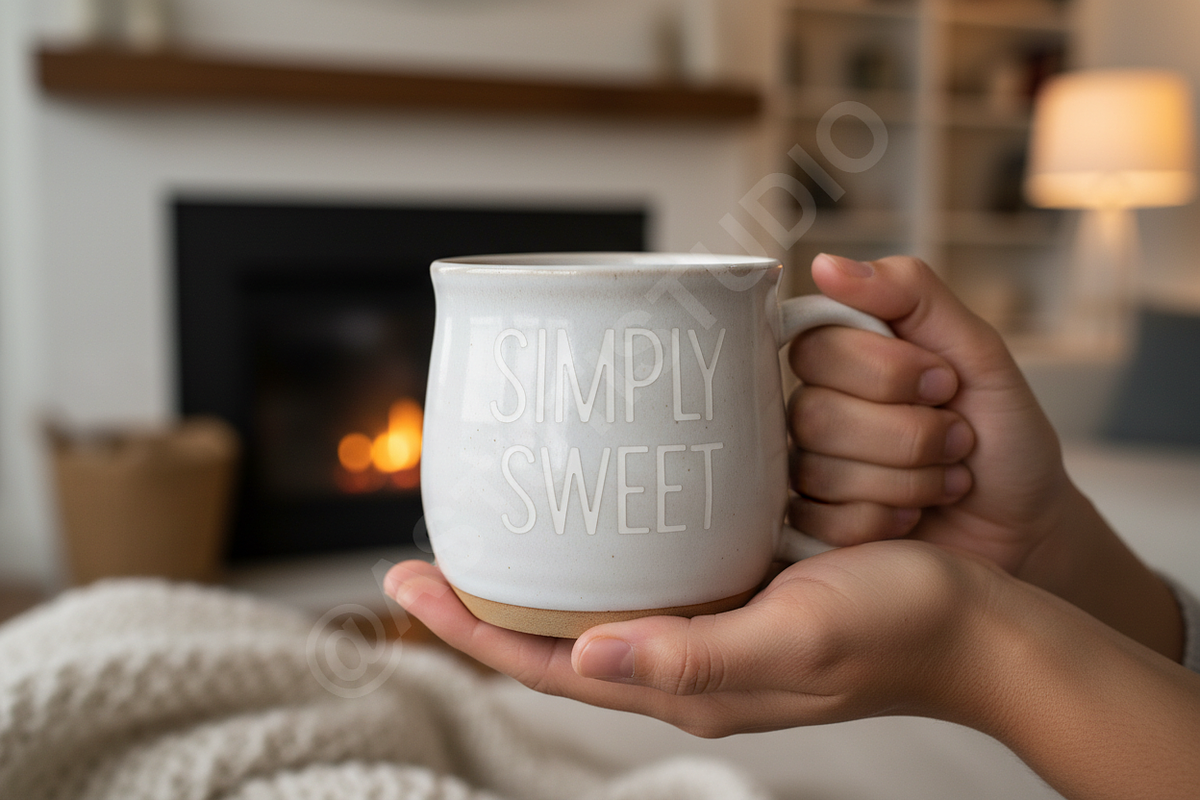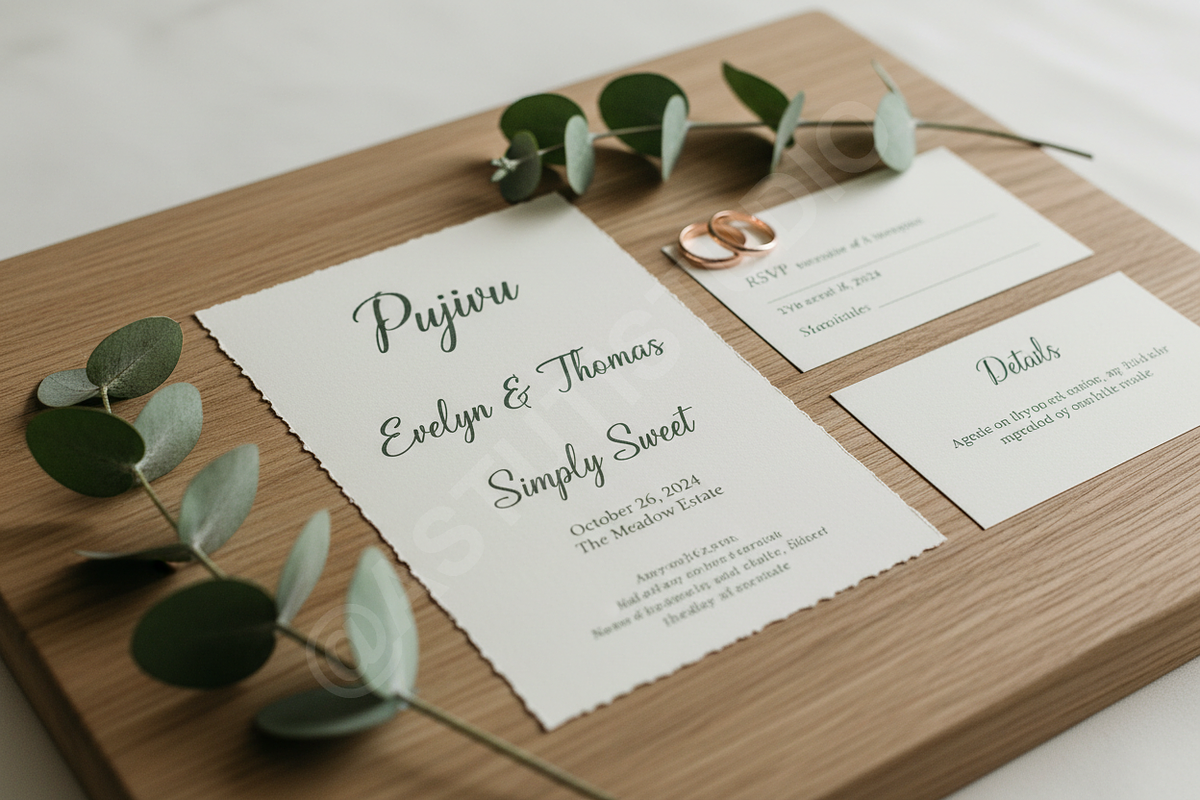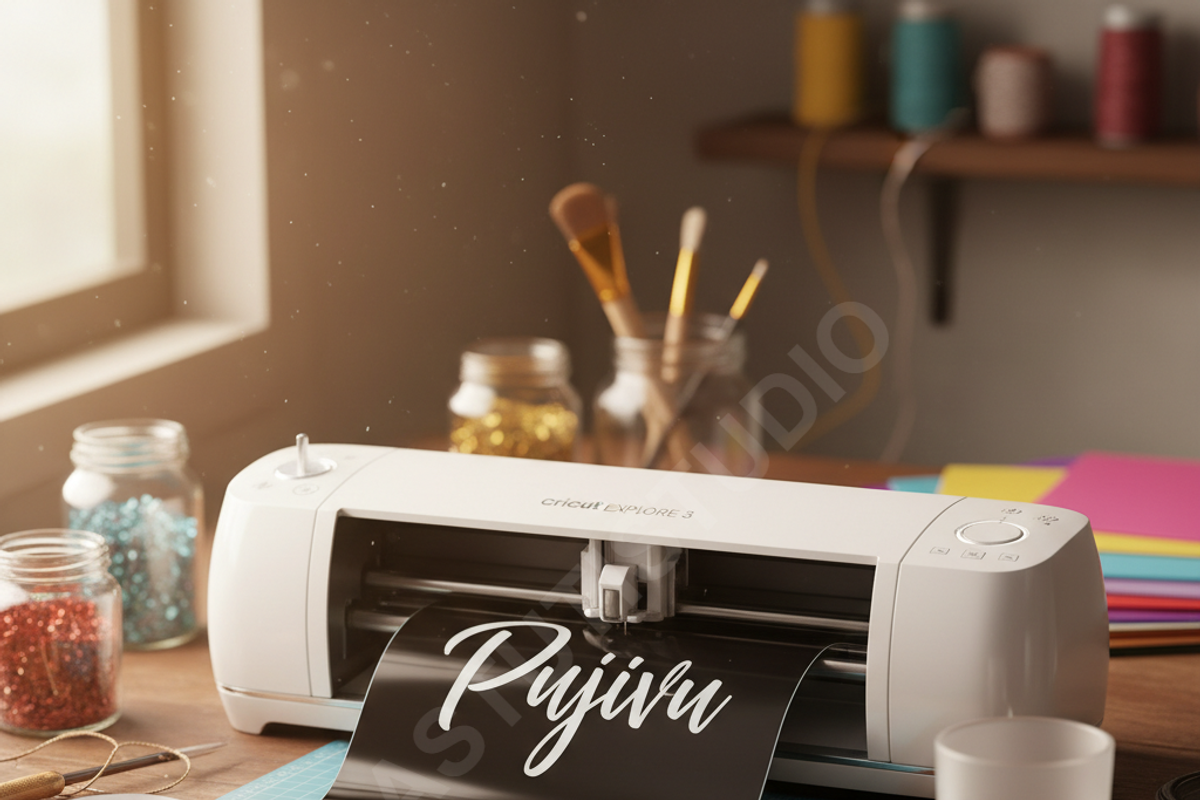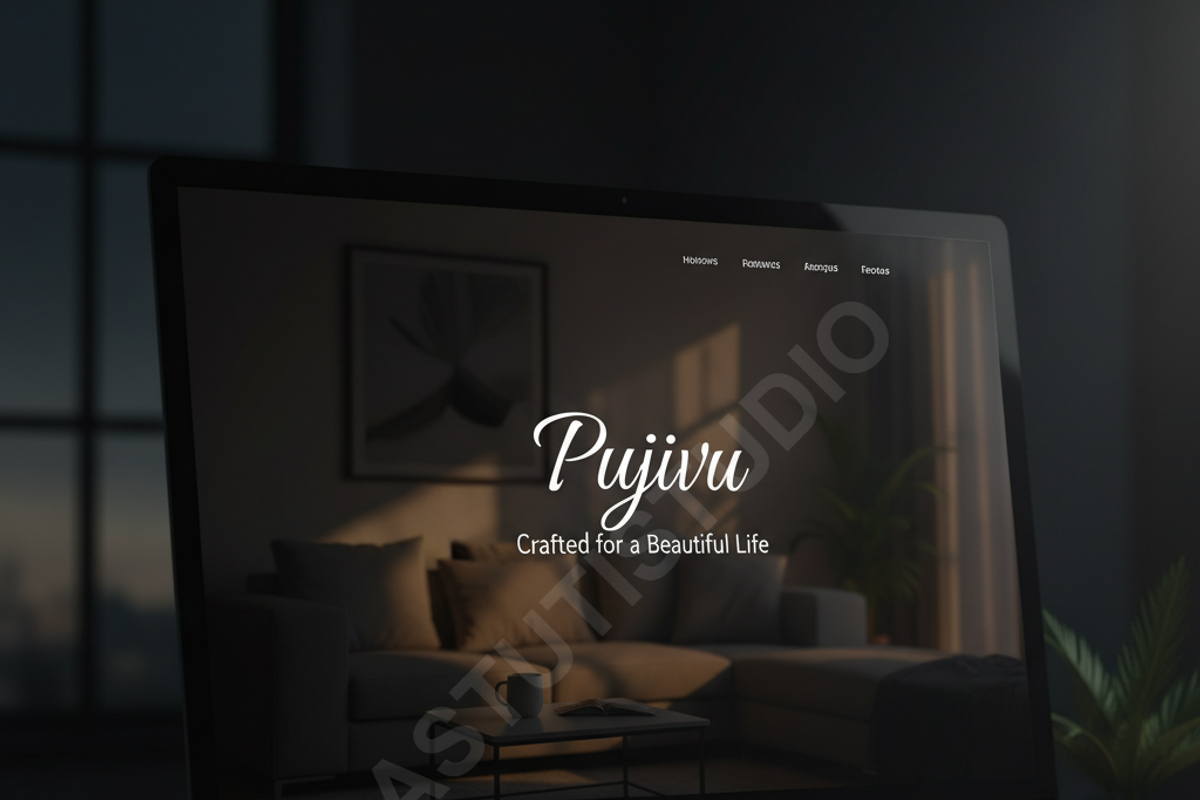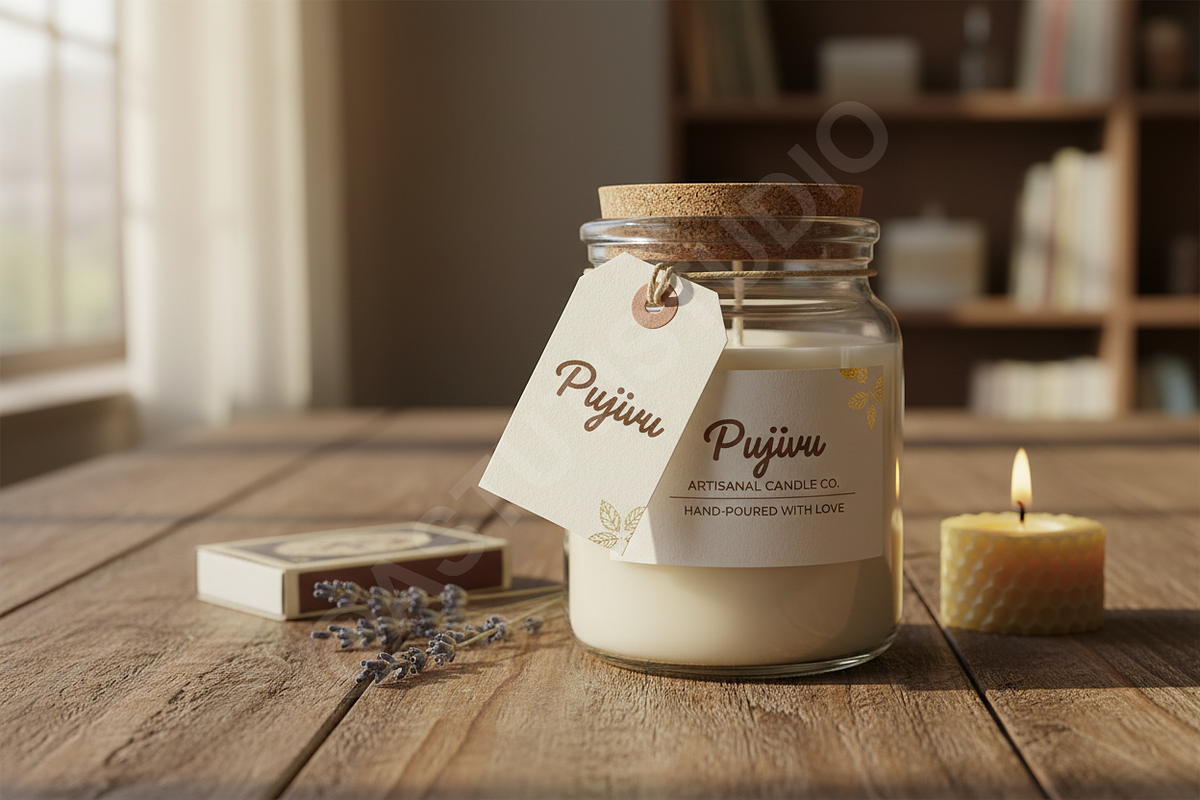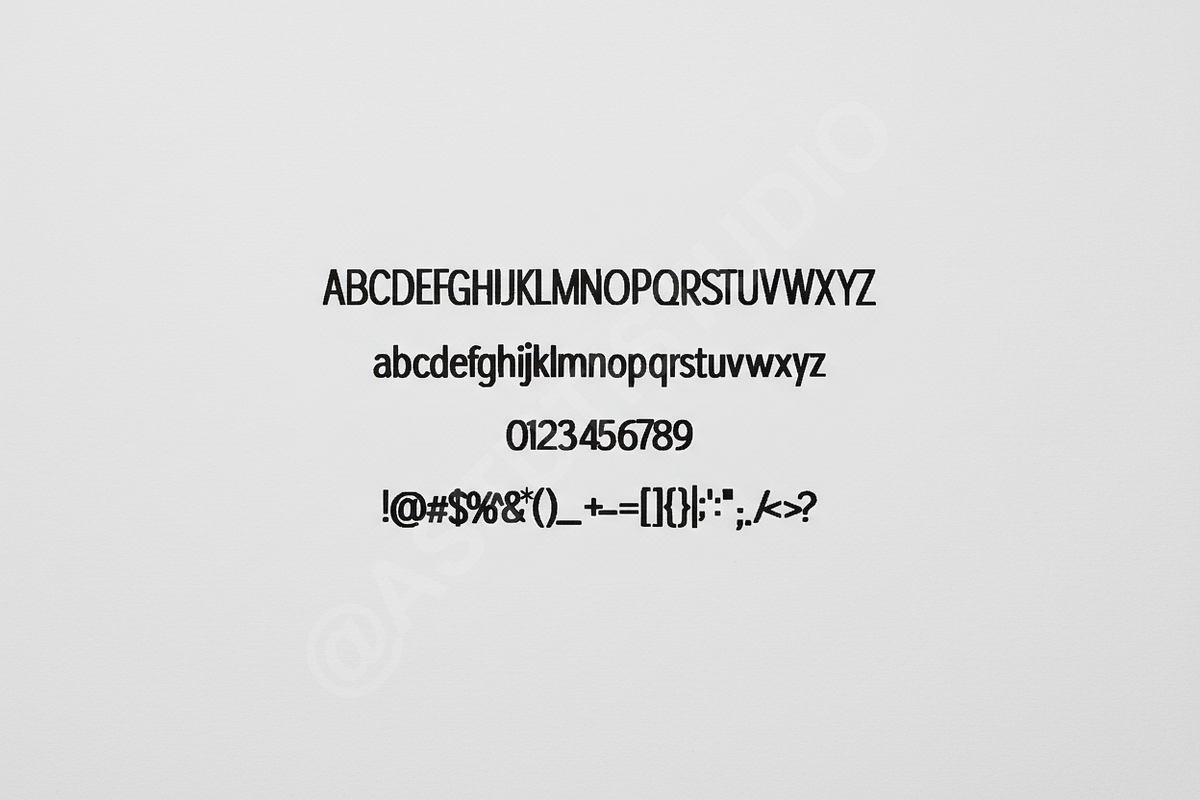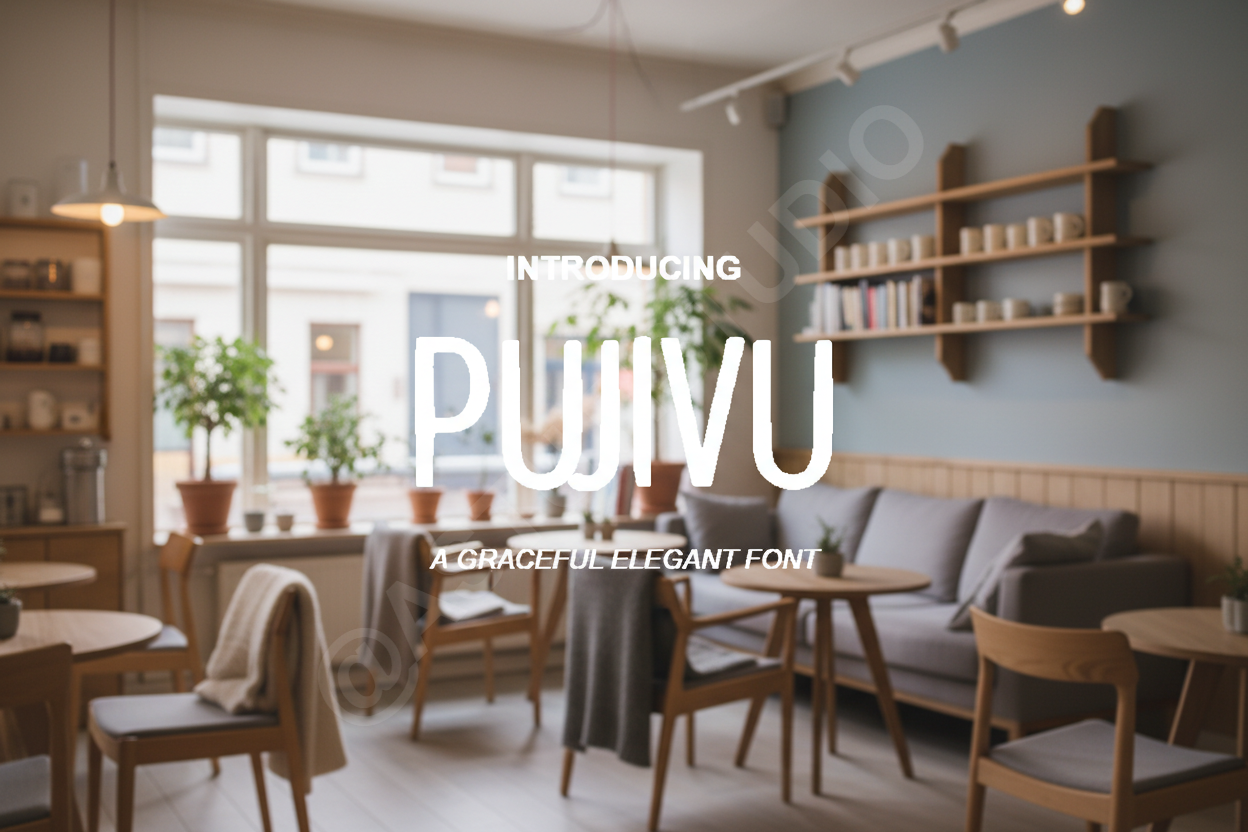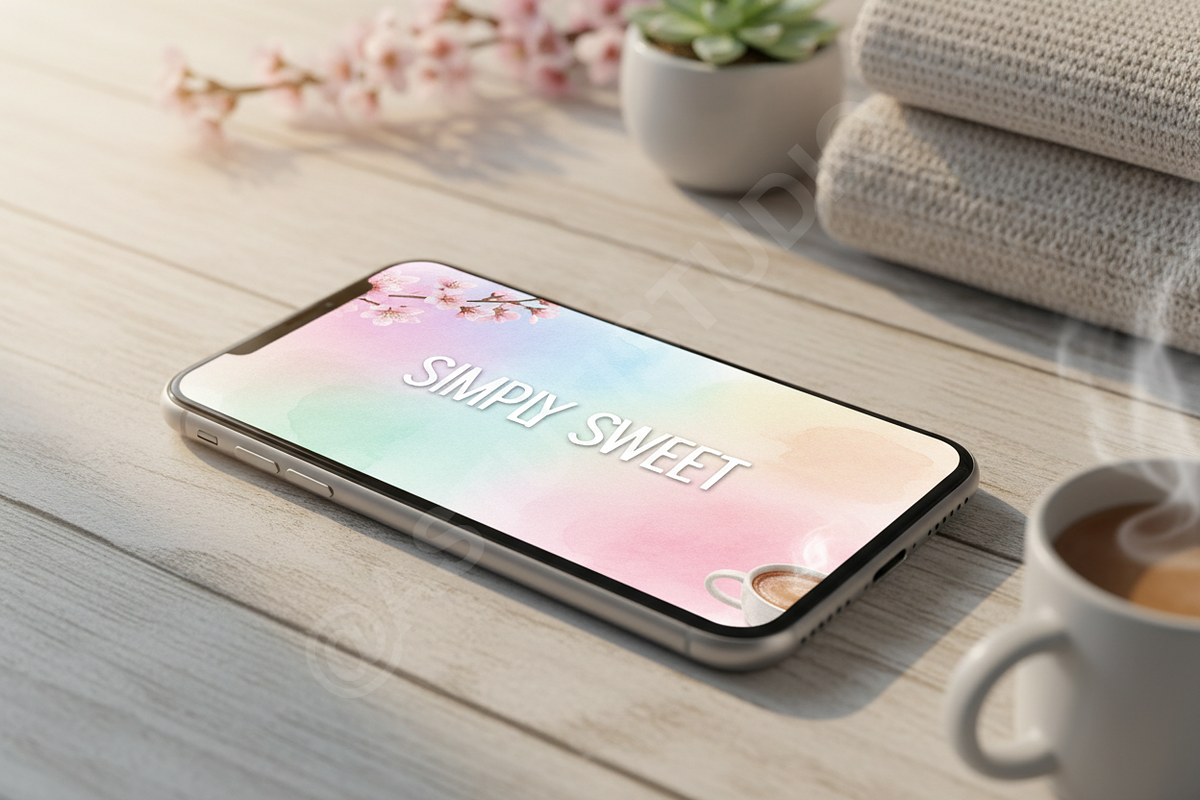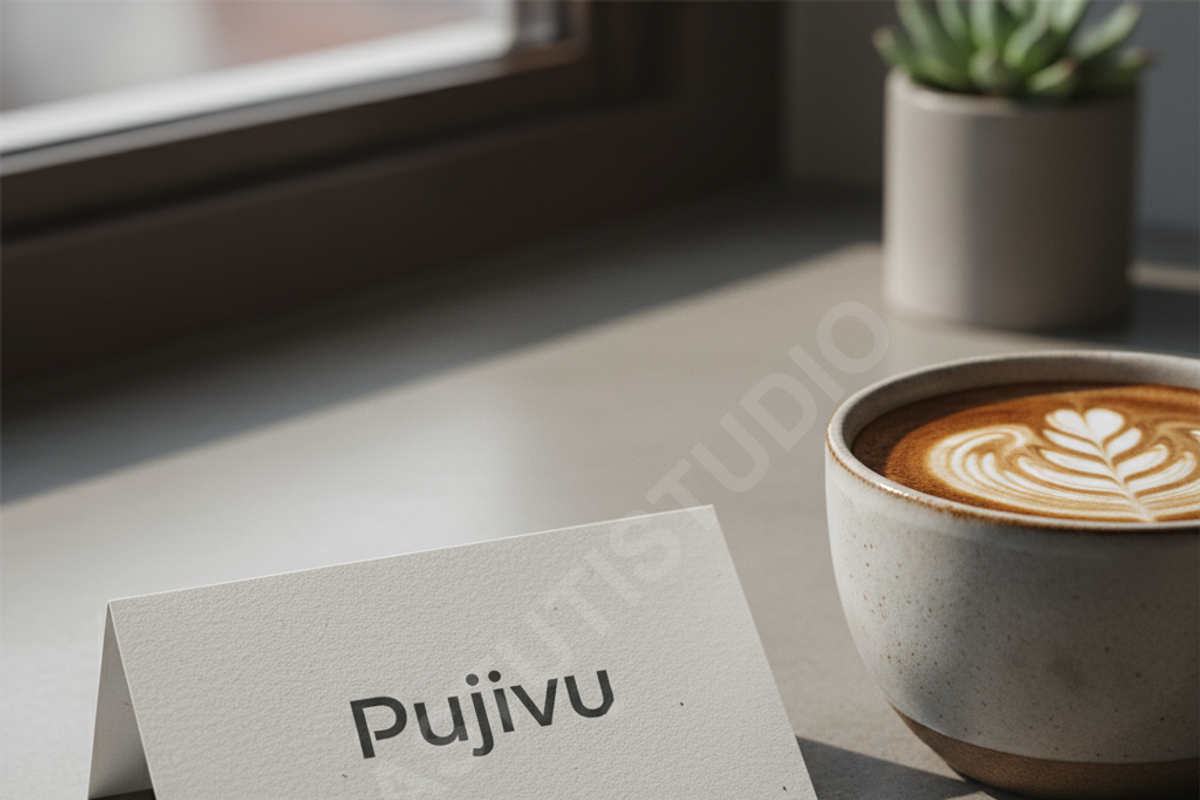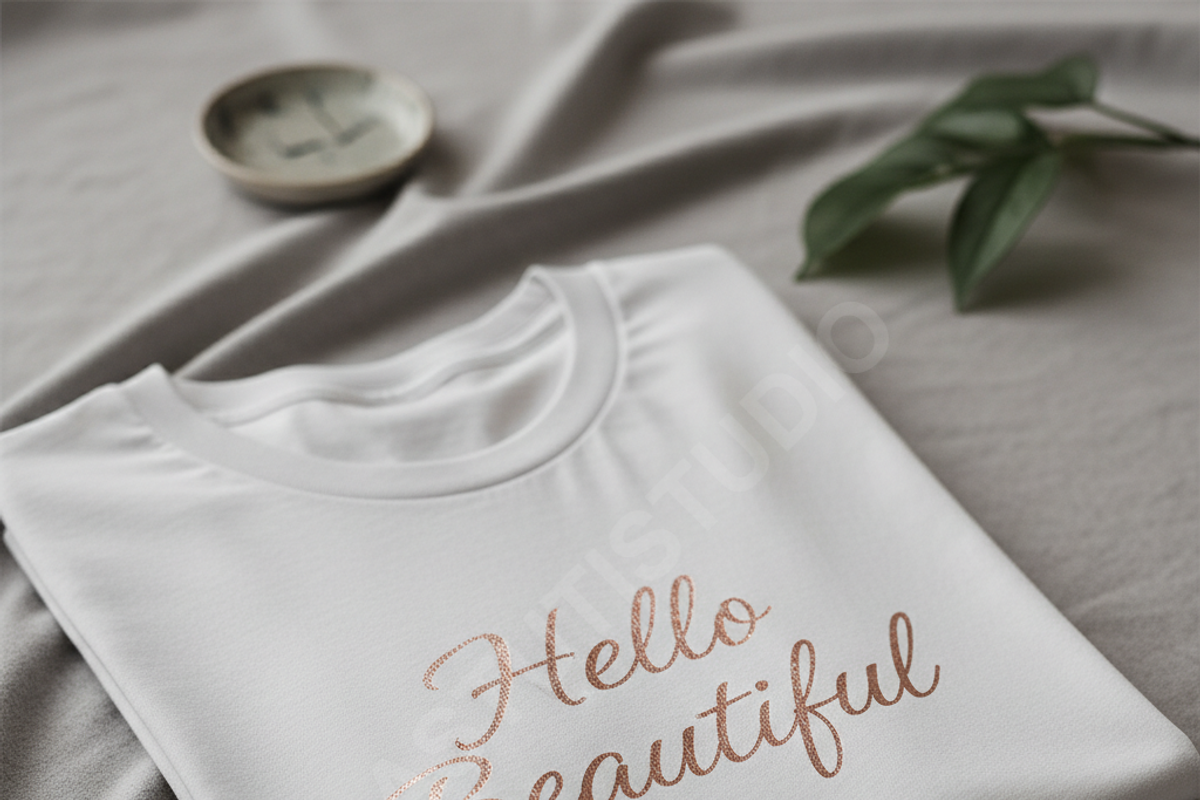
Pujivu - Modern Luxury Serif Font
PUJIVU | THE ESSENCE OF EDITORIAL ELEGANCE
INTRODUCTION
Elevate your visual identity with Pujivu, a premium serif typeface meticulously crafted for the modern aesthetic. Balancing sharp, high-contrast strokes with graceful, fluid curves, Pujivu embodies the spirit of contemporary luxury. Whether you are designing a high-end fashion logo, a sophisticated editorial layout, or a curated social media campaign, this font brings an undeniable sense of prestige and clarity to every character.
- Elegant high-contrast serif design
- Extensive set of unique ligatures
- Stylistic alternates for creative customization
- Full multilingual support for international branding
- Precisely kerned for professional-grade typography
- Crisp rendering for both digital and print media